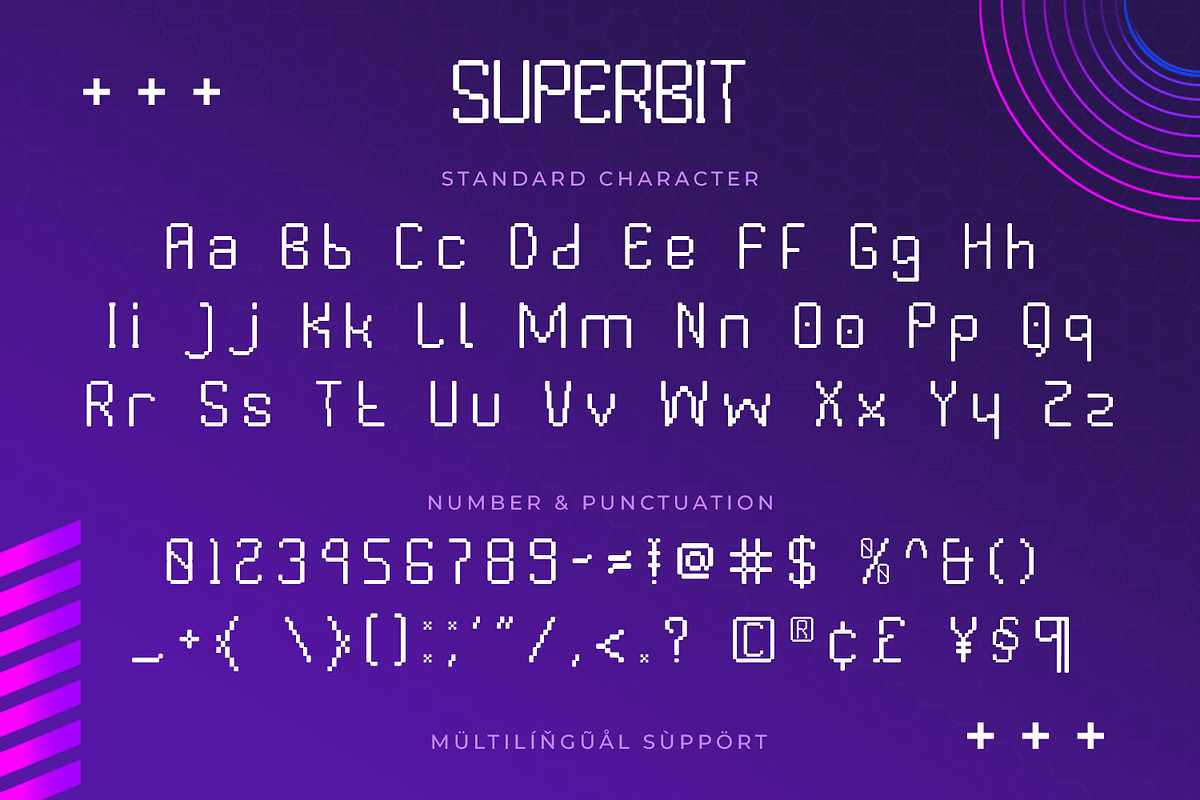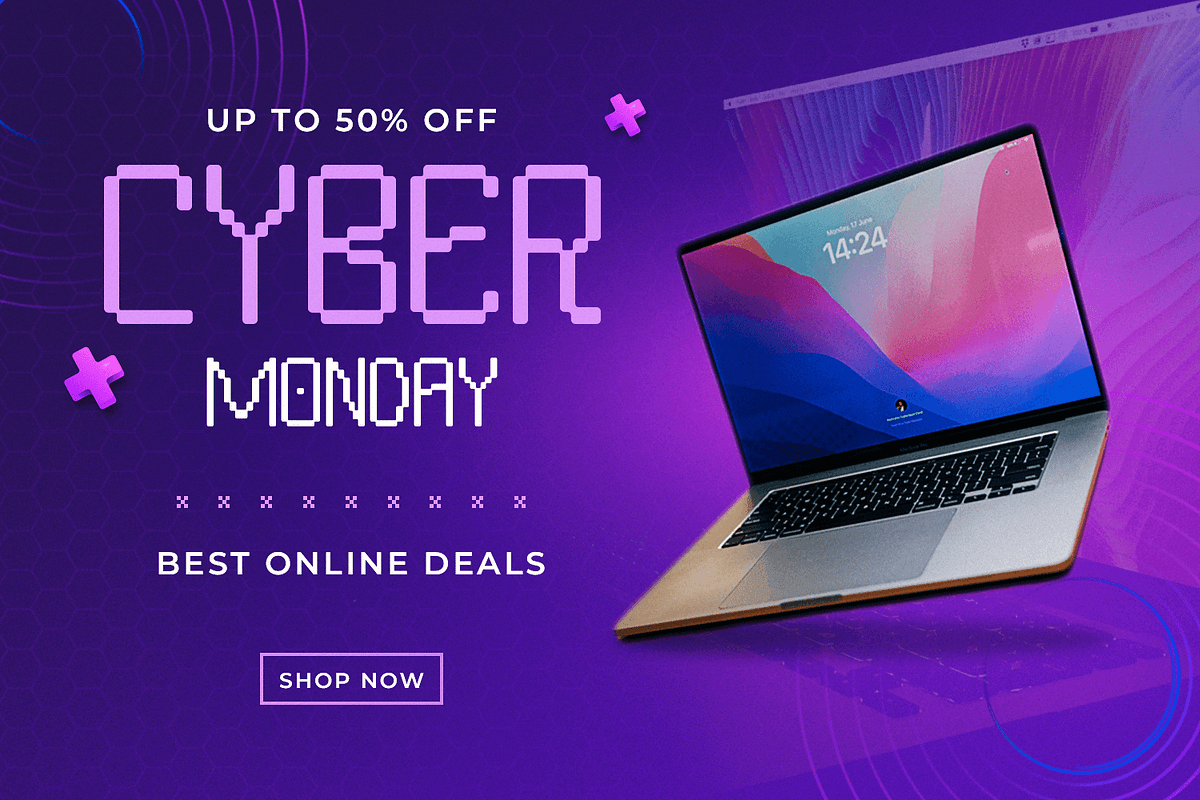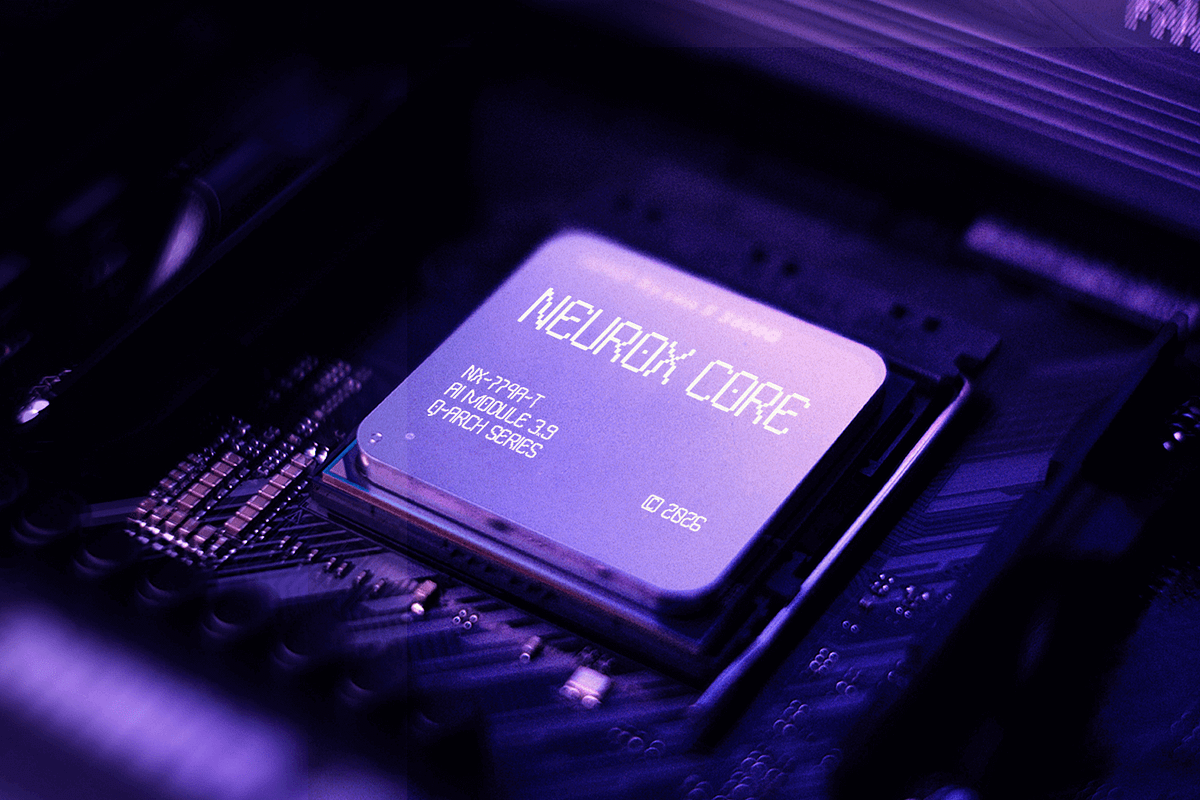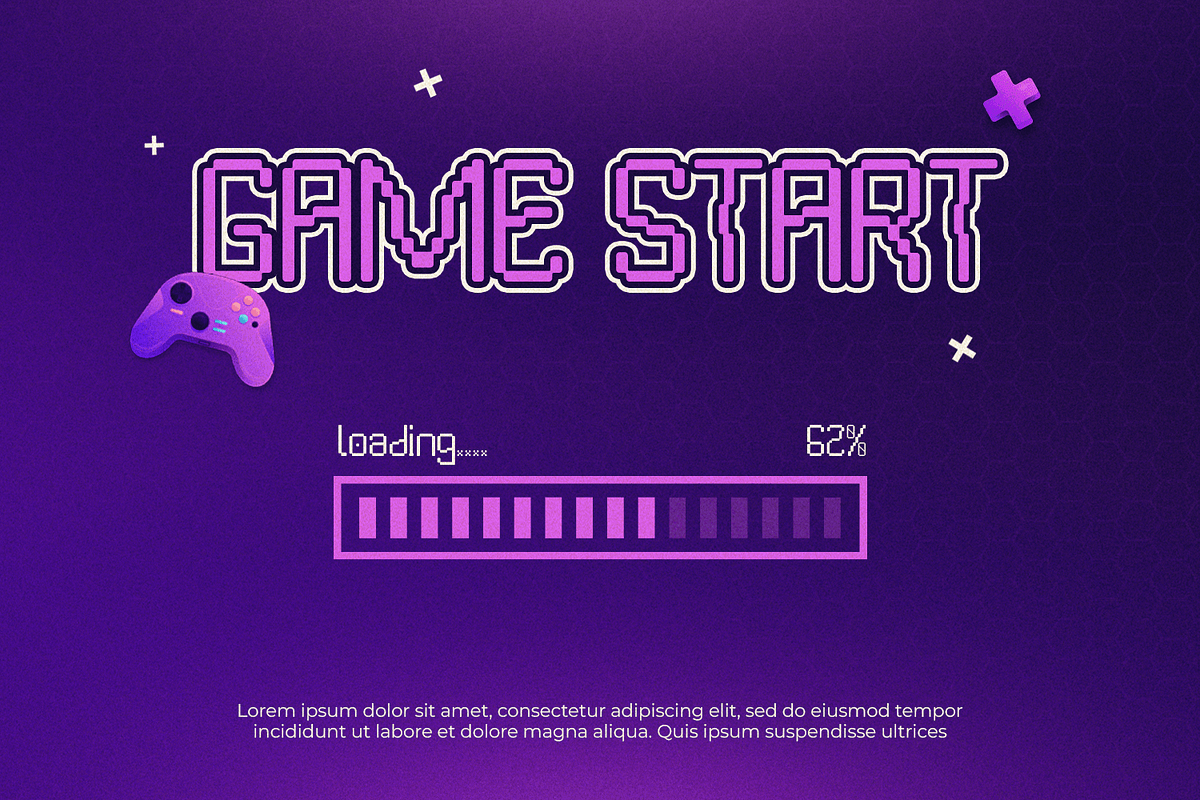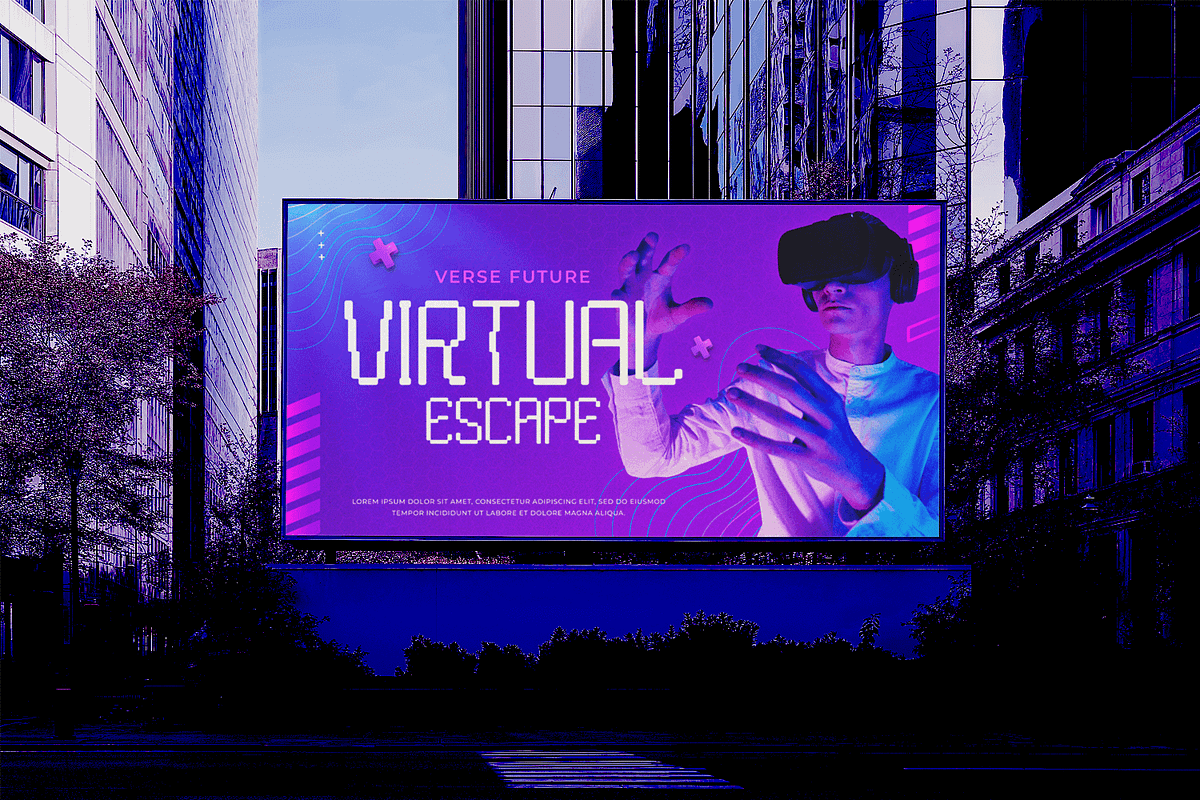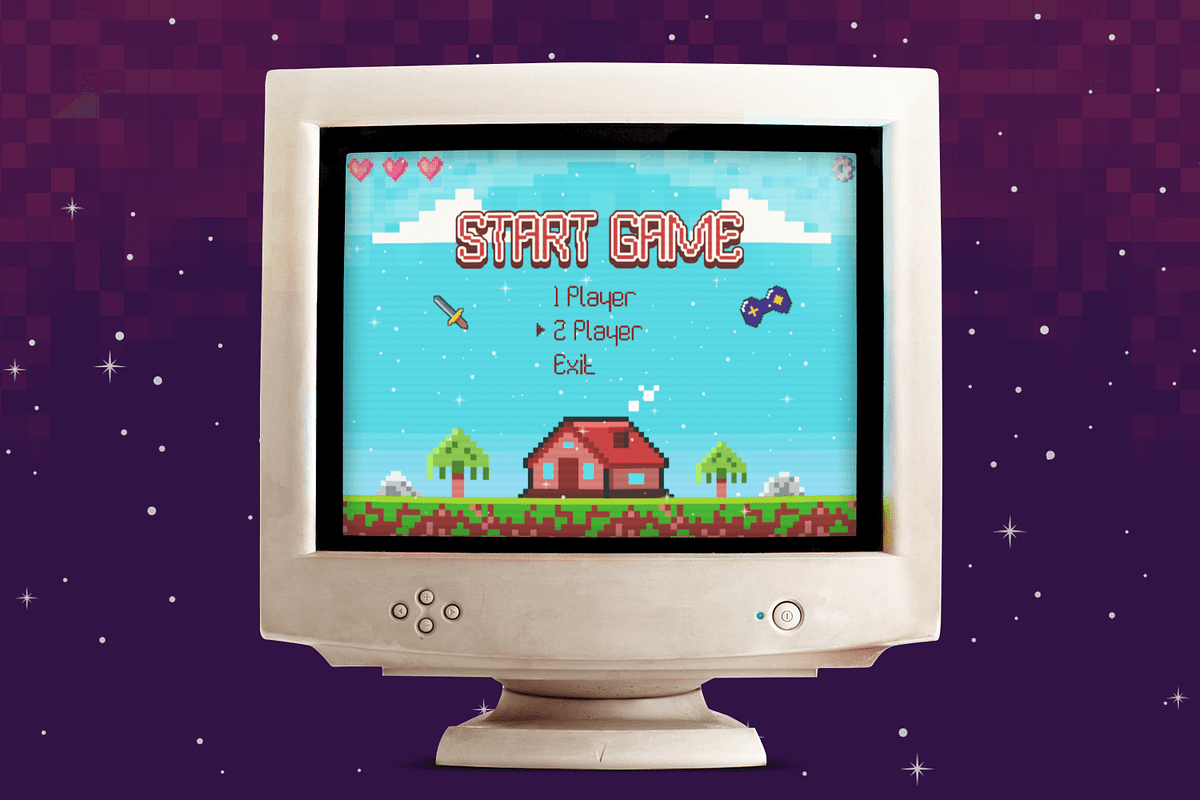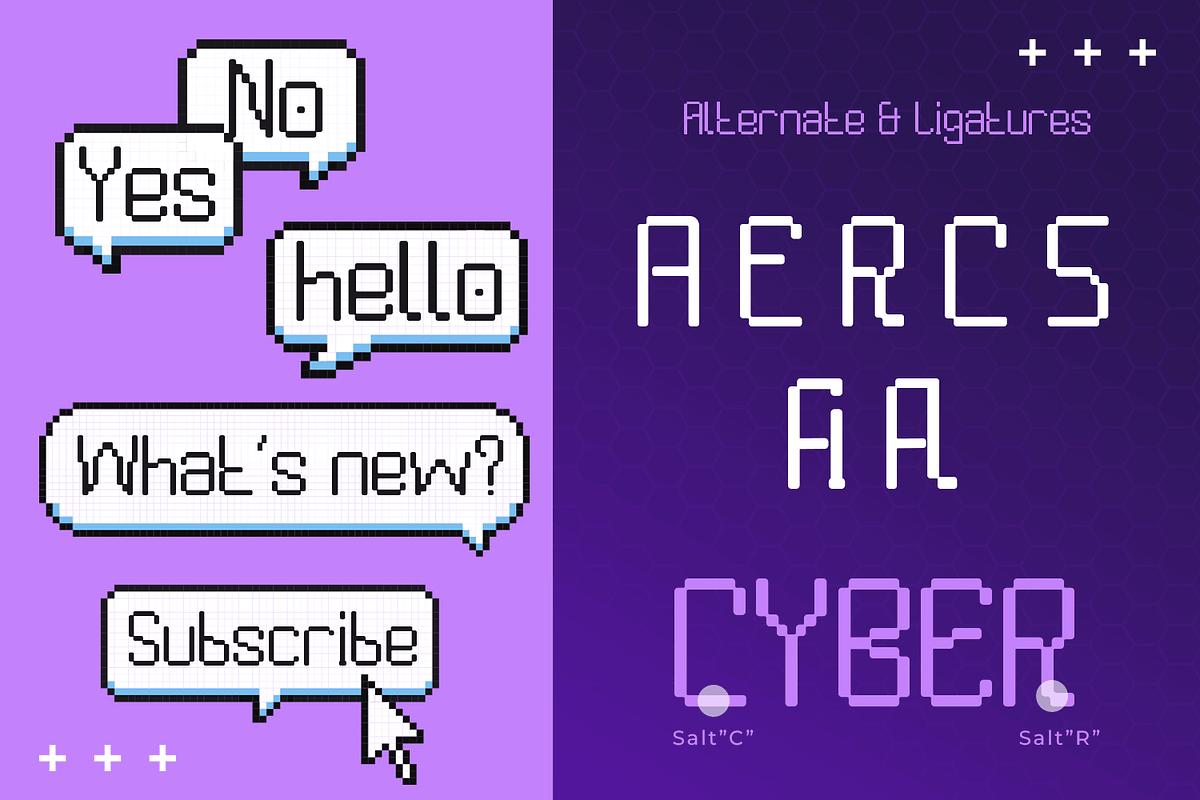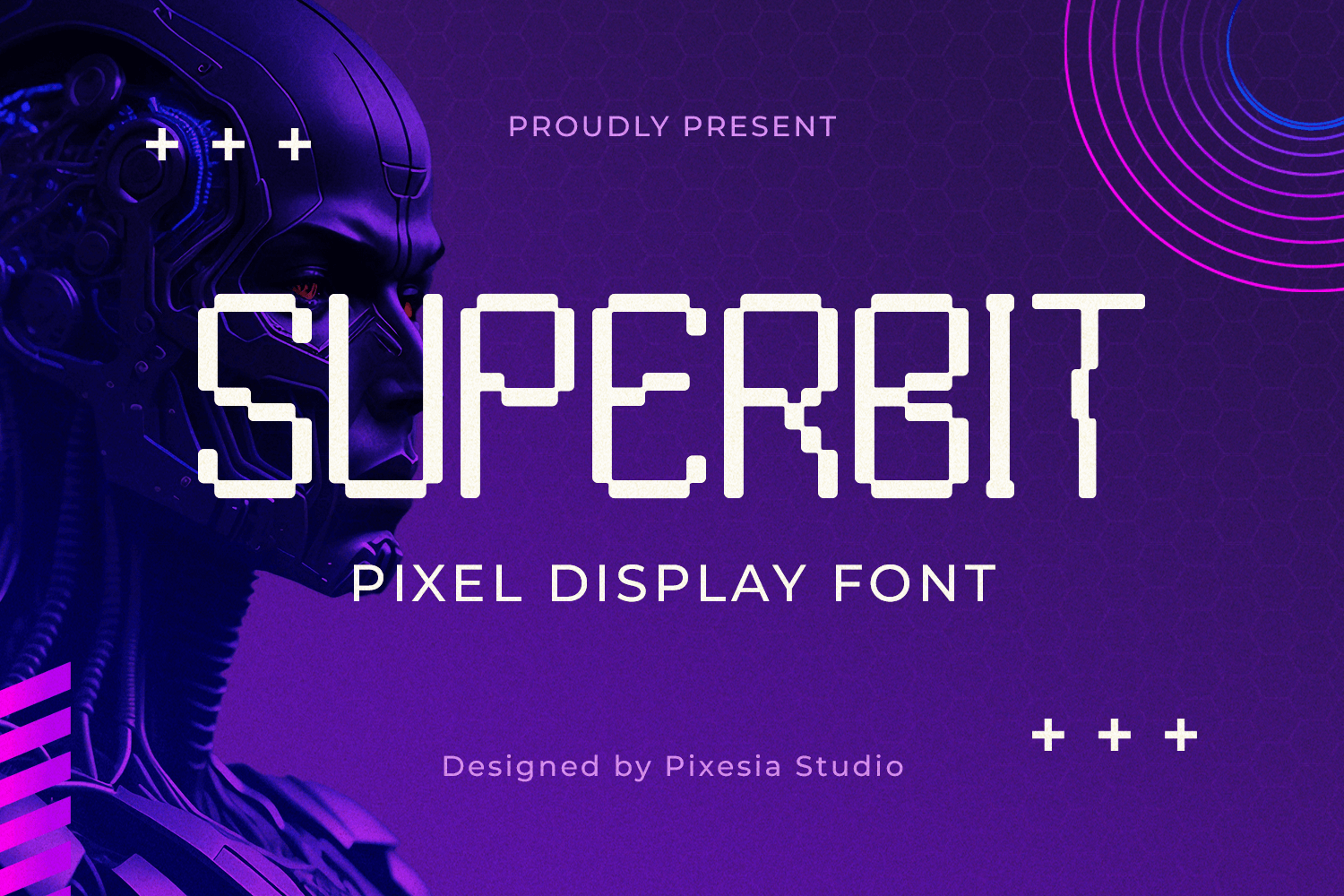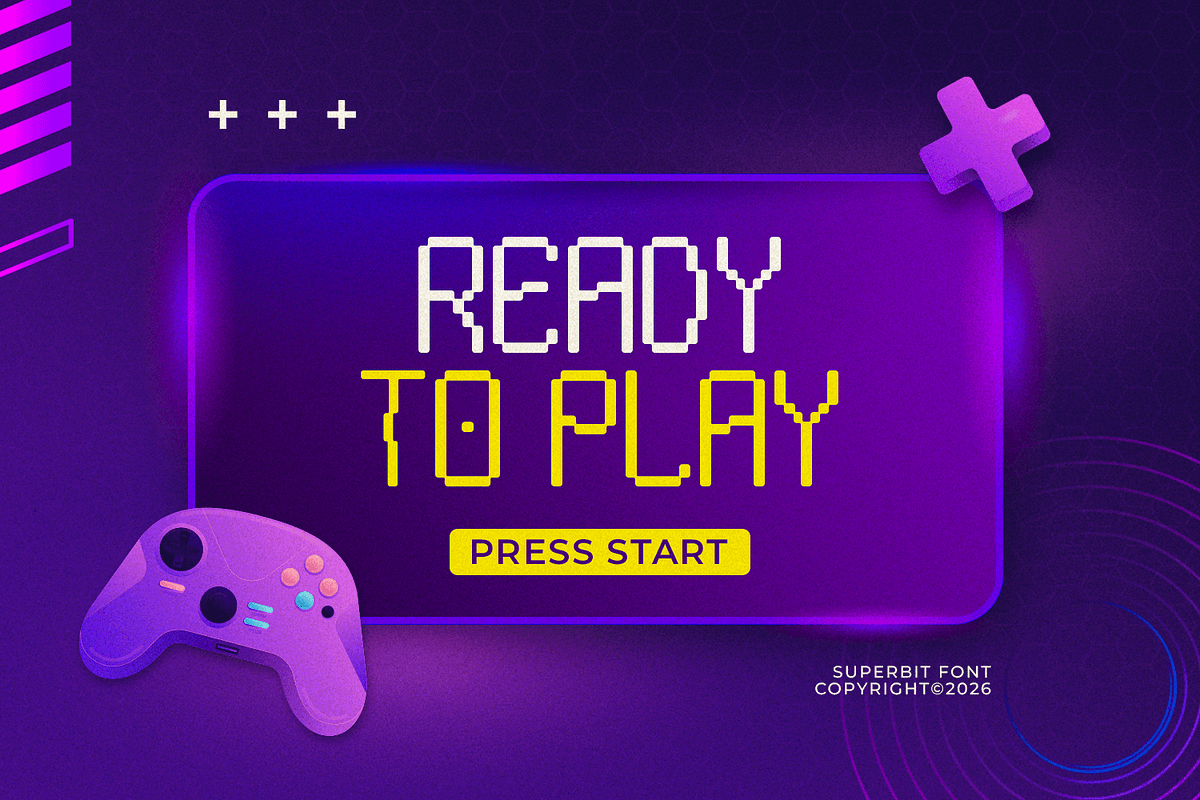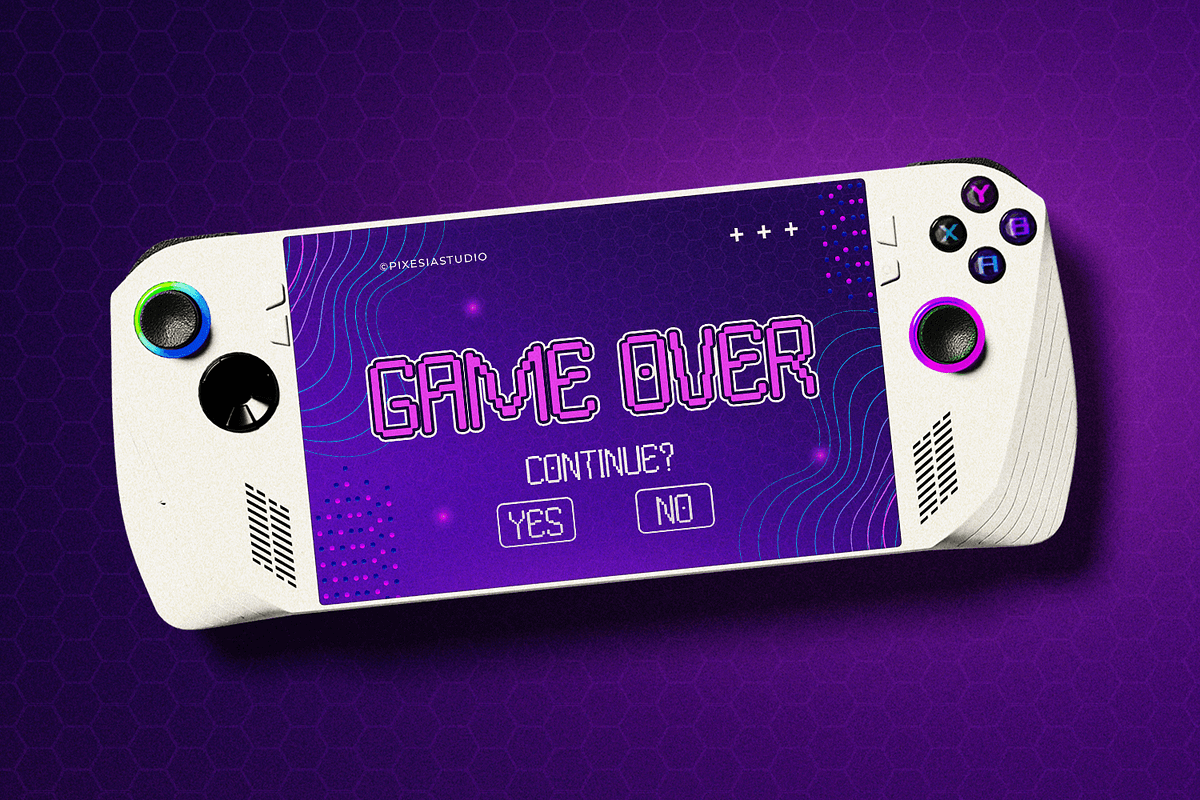
Superbit - Pixel Display Font
Introducing Superbit - Pixel Display Font
Superbit is a bold pixel display font inspired by classic 8-bit games and futuristic digital interfaces. Built with sharp geometric forms and structured grid precision, Superbit delivers a clean yet powerful tech aesthetic that feels retro and modern at the same time. Its strong pixel construction makes every letter highly legible while maintaining an authentic arcade-style character.
Perfect for gaming projects, esports branding, tech startups, app interfaces, posters, YouTube thumbnails, and cyberpunk-themed designs, Superbit brings a dynamic digital vibe to any layout. Whether you're creating a retro arcade identity or a futuristic UI concept, Superbit ensures your typography stands out with bold pixel precision.
- Multilingual Support including Afrikaans, Albanian, Basque, Catalan, Danish, Dutch, English, Estonian, Faroese, Filipino, Finnish, French, Galician, German, Icelandic, Indonesian, Irish, Italian, Malay, Norwegian Bokmål, Portuguese, Spanish, Swahili, Swedish, Zulu